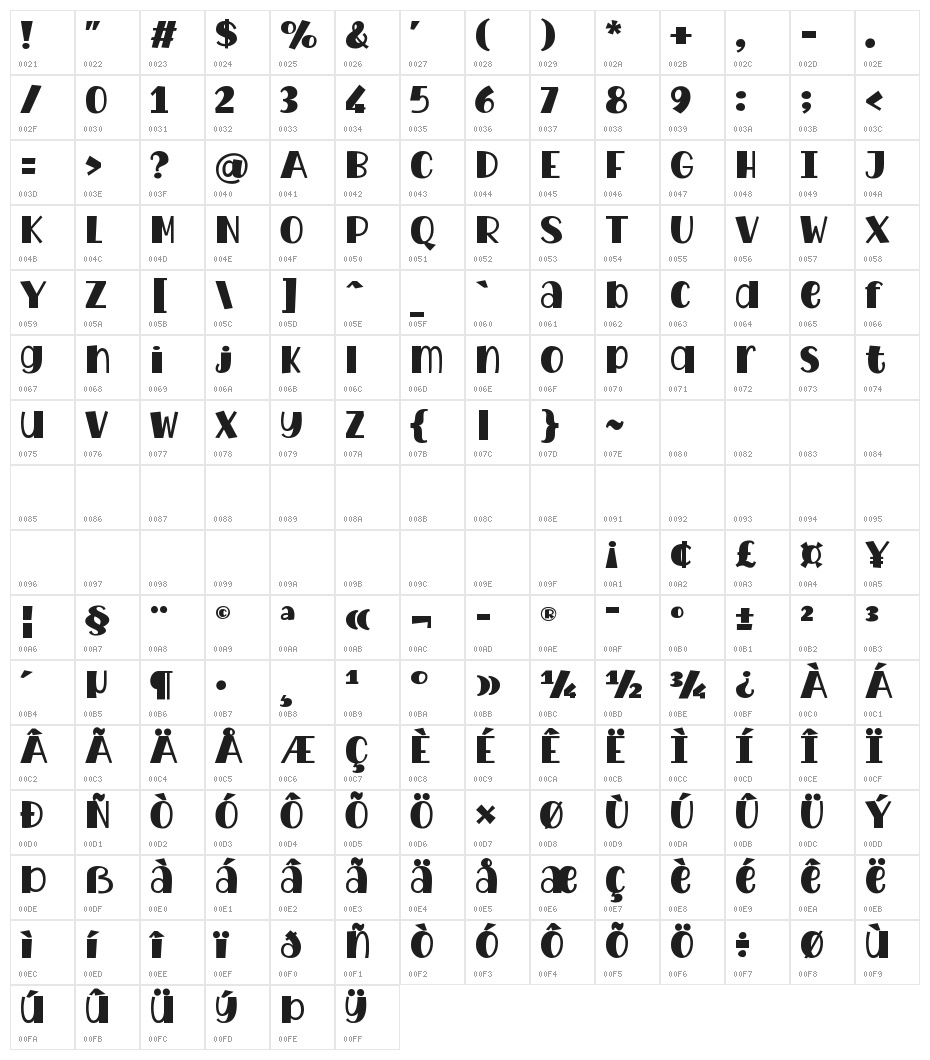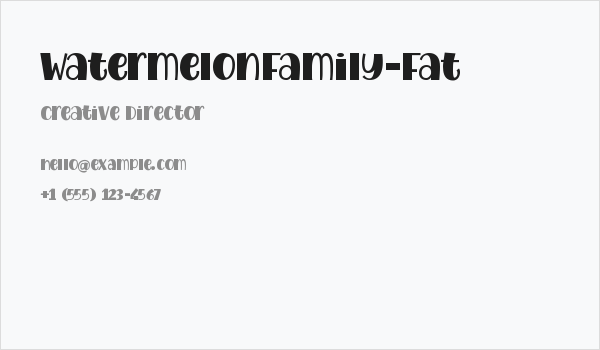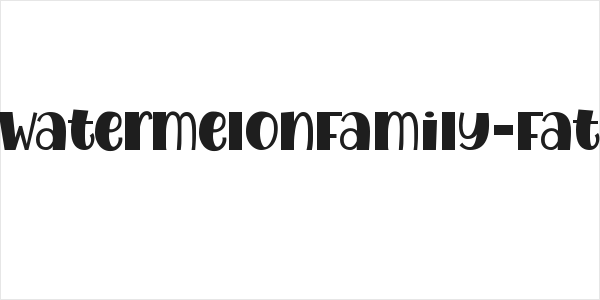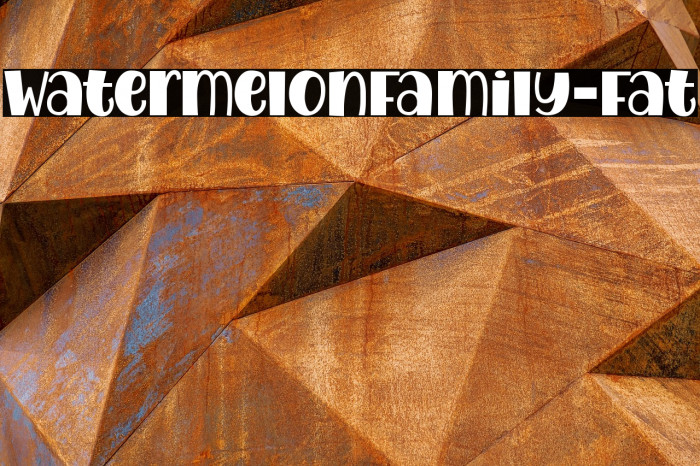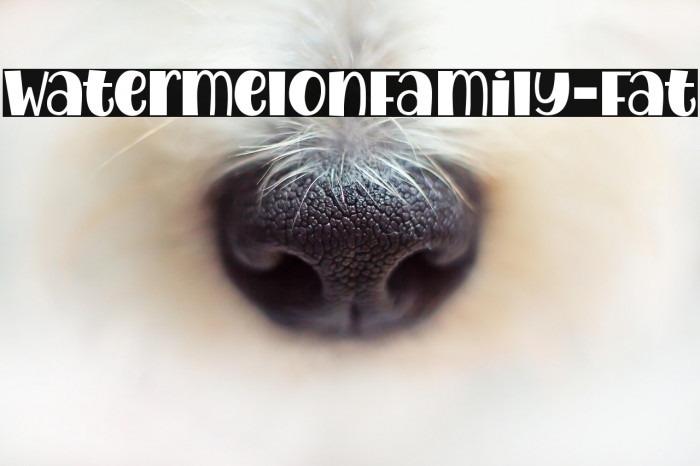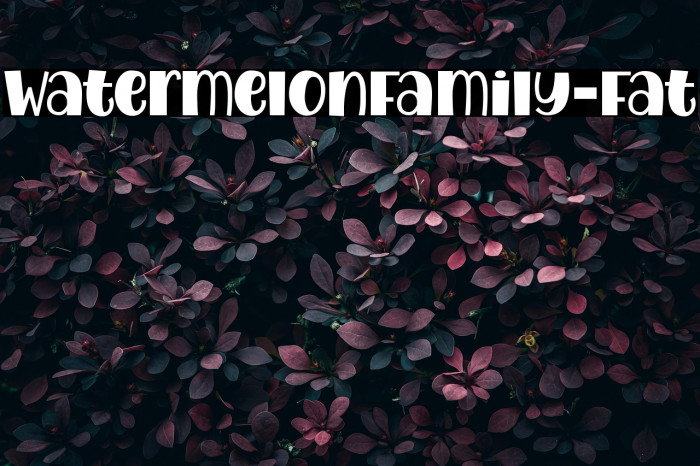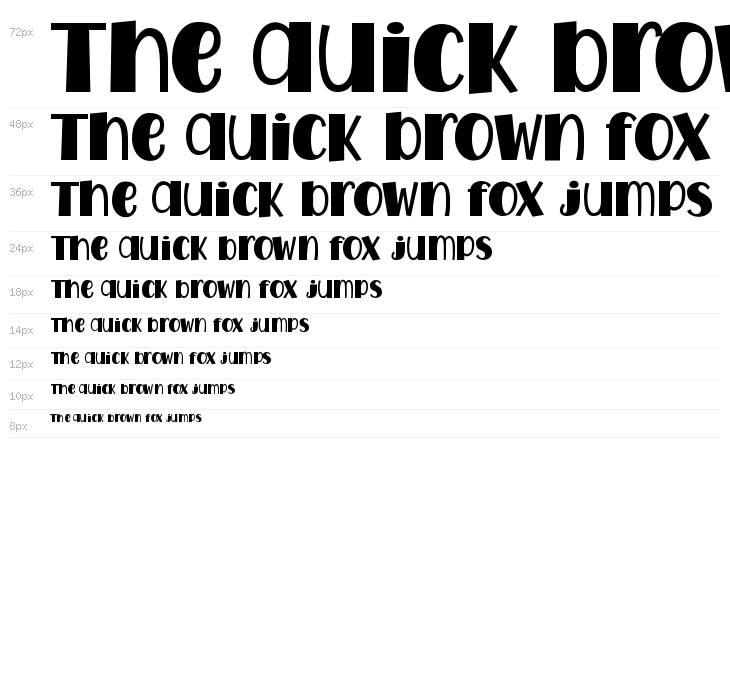
WatermelonFamily-Fat Font
WatermelonFamily-Fat Description
This font features a bold and playful design with exaggerated curves and a whimsical style. The characters are wide and have a strong presence, making them ideal for attention-grabbing headlines or creative projects. The uppercase letters are particularly striking, with unique shapes that add a sense of fun and creativity. The lowercase letters maintain the playful theme, with some characters having unexpected twists and turns. Numbers and special characters are equally bold, ensuring consistency across all text elements. The overall aesthetic is both modern and retro, making it versatile for various design needs.
| Overall Style | Playful, Modern, Retro |
| Proposed Projects | Ideal for children's books, playful branding, posters, and creative advertising. |